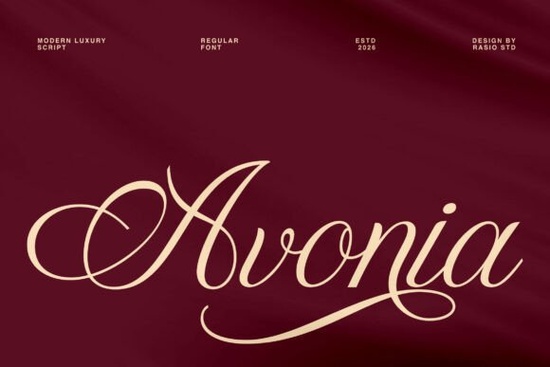
If you spend time browsing digital design assets, you know that typography often dictates the mood of an entire project before anyone reads a single word. You want something that feels polished yet approachable, expensive but personal. That is where Avonia Font comes into play for designers who value refinement in every letterform. It brings a modern script aesthetic that bridges the gap between traditional calligraphy and contemporary layout needs, making it a valuable addition to any asset library.
Understanding the stroke and flow
The appeal of this typeface lies in how it handles transitions between characters. Unlike rigid block letters, script fonts rely heavily on connections and curves to convey movement. Avonia features elegant flowing strokes paired with graceful letterforms that create a rhythmic visual path for the eye. This high-contrast design allows for strong emphasis on specific parts of the text while keeping the overall shape balanced and legible. When applied correctly, the sophisticated swashes and stylish alternates enhance visual elegance across compositions without cluttering the design space.
Crafters often ask if this type face supports standard character sets. Yes, it includes a robust selection of glyphs designed to handle complex punctuation marks smoothly. This attention to detail ensures that your work looks premium whether you are working on a business card or a large poster. If you wish to dive deeper into the specific weights and variants available, exploring the full collection at this dedicated resource page will give you a clear view of everything included in the kit.
Finding the right niche for the style
While the font is excellent for wedding invitations, its application extends further into fashion editorials, beauty product packaging, and social media content that emphasizes sophistication. The flowing script style enhances logos, headlines, and decorative typography, making it ideal for both personal and commercial projects seeking a timeless impression. Many users find themselves switching between different script types depending on the season or the event they are creating for.
Signature and branding applications
One of the most common requests from small business owners is how to incorporate a handwritten feel into their logo or packaging. Since this script captures a genuine handwritten energy, it pairs exceptionally well with brand markups that aim to appear custom-made. It works perfectly for luxury branding because it mimics the precision of a skilled pen operator while maintaining vector scalability. When considering alternative styles that serve similar functions, such as signature-inspired typefaces, it becomes easier to curate a cohesive look across all your marketing materials.
There is also a softness to this design that resonates well with lifestyle brands. If your goal is to evoke emotion rather than just deliver information, the smooth connections contribute significantly to that warmth. This makes it particularly effective for greeting cards, personalized gifts, and intimate stationery suites. Even for digital content creators, having access to a font that translates well to video overlays can save hours of editing time.
When designing, remember that high-contrast scripts demand whitespace. Crowding text can obscure the intricate details of the swashes. Always test your headlines at different sizes to ensure clarity. Below is a quick guide to help you decide if this font fits your current workflow requirements:
This font serves as a reliable tool for elevating print-on-demand shops or personal creative outlets alike. By understanding its strengths and limitations, you can create visuals that feel both professional and heartfelt. Whether you are launching a new beauty line or organizing a community event, getting the typography right is the first step toward success.